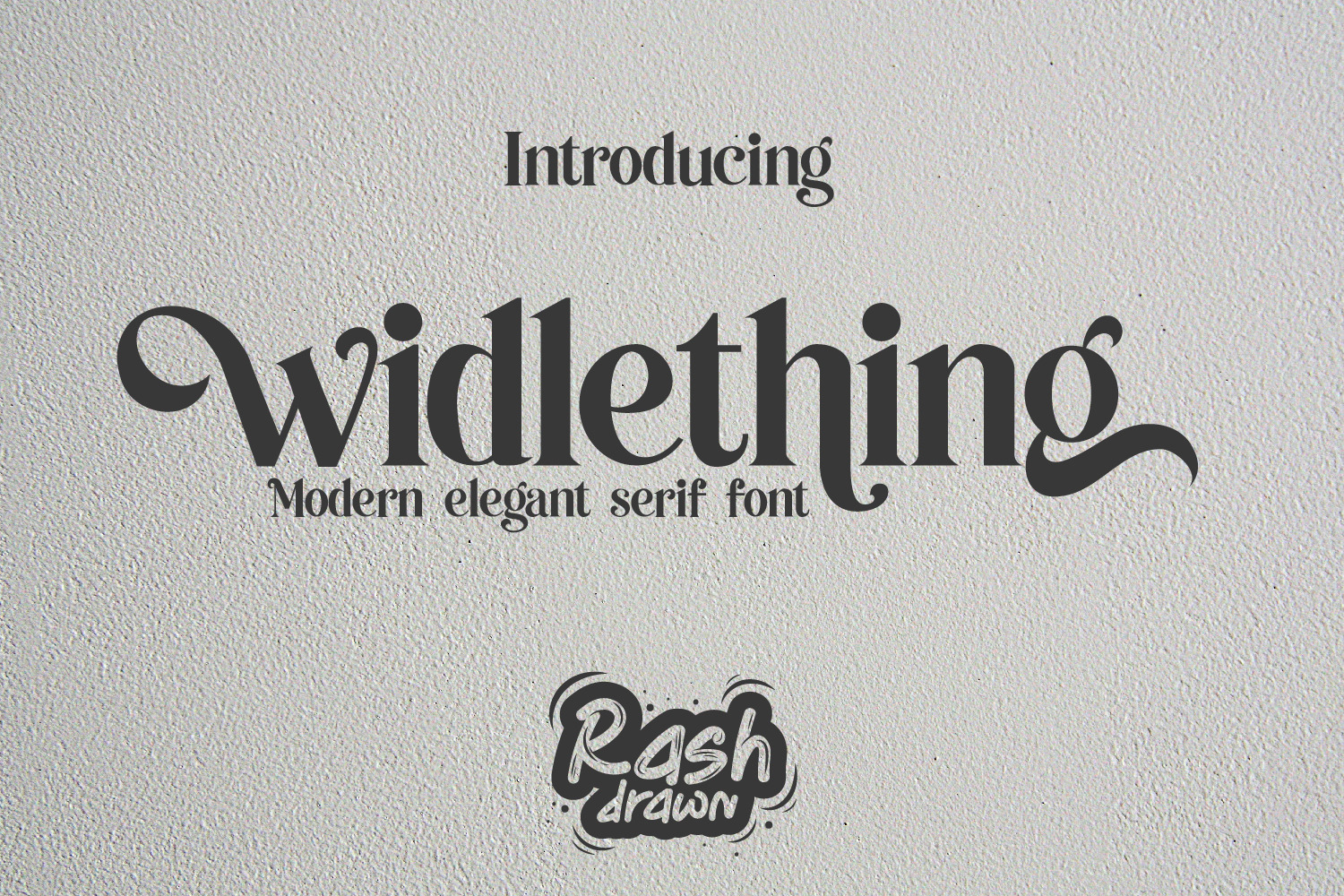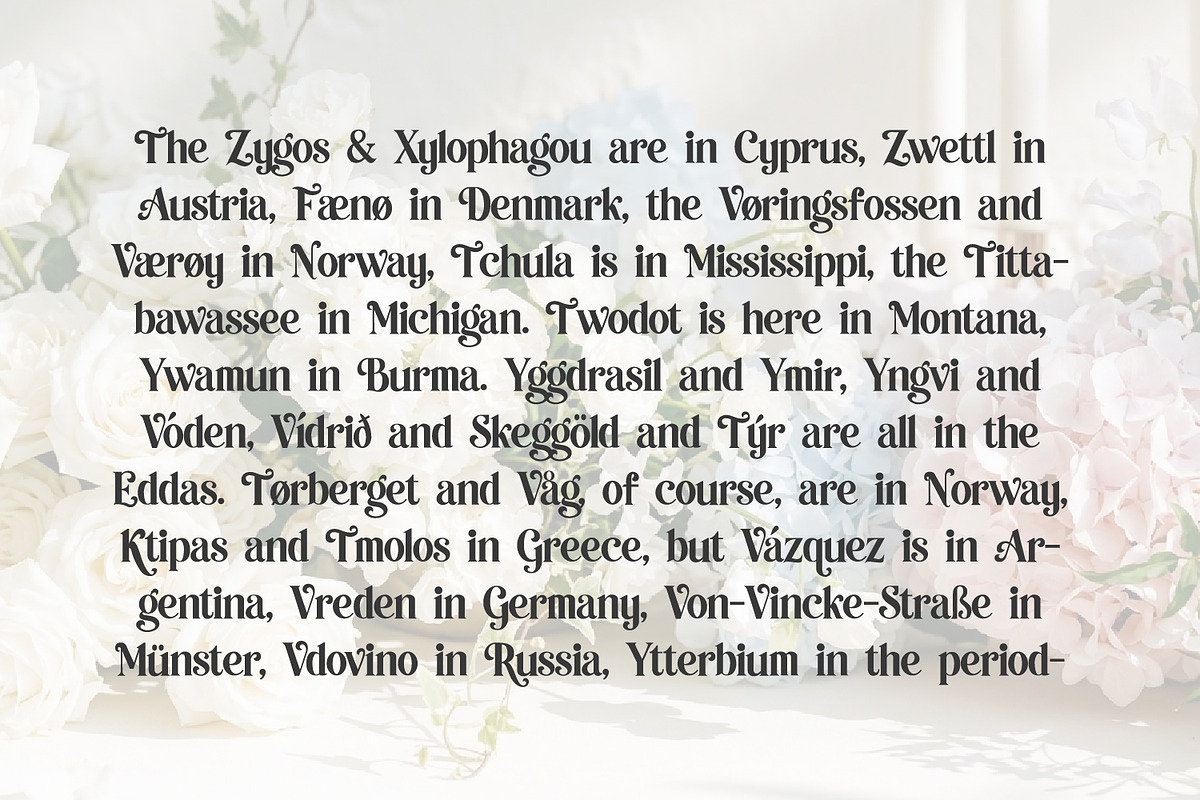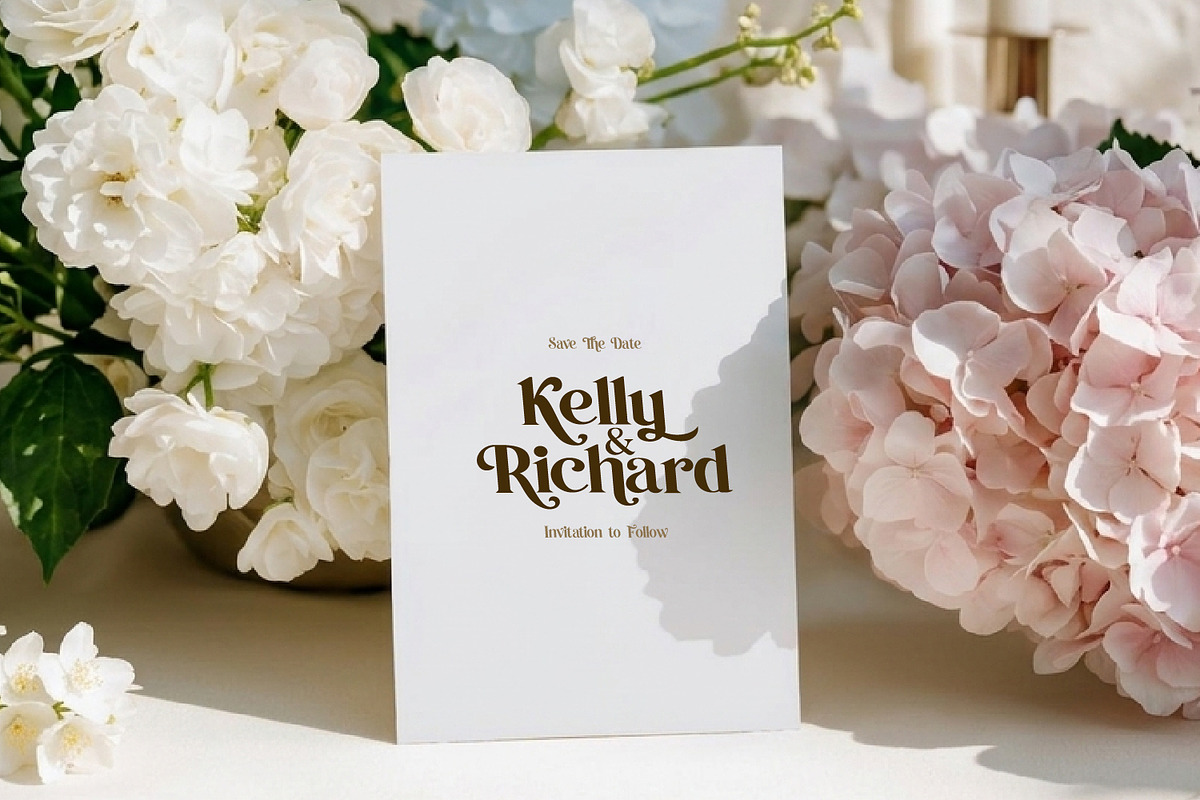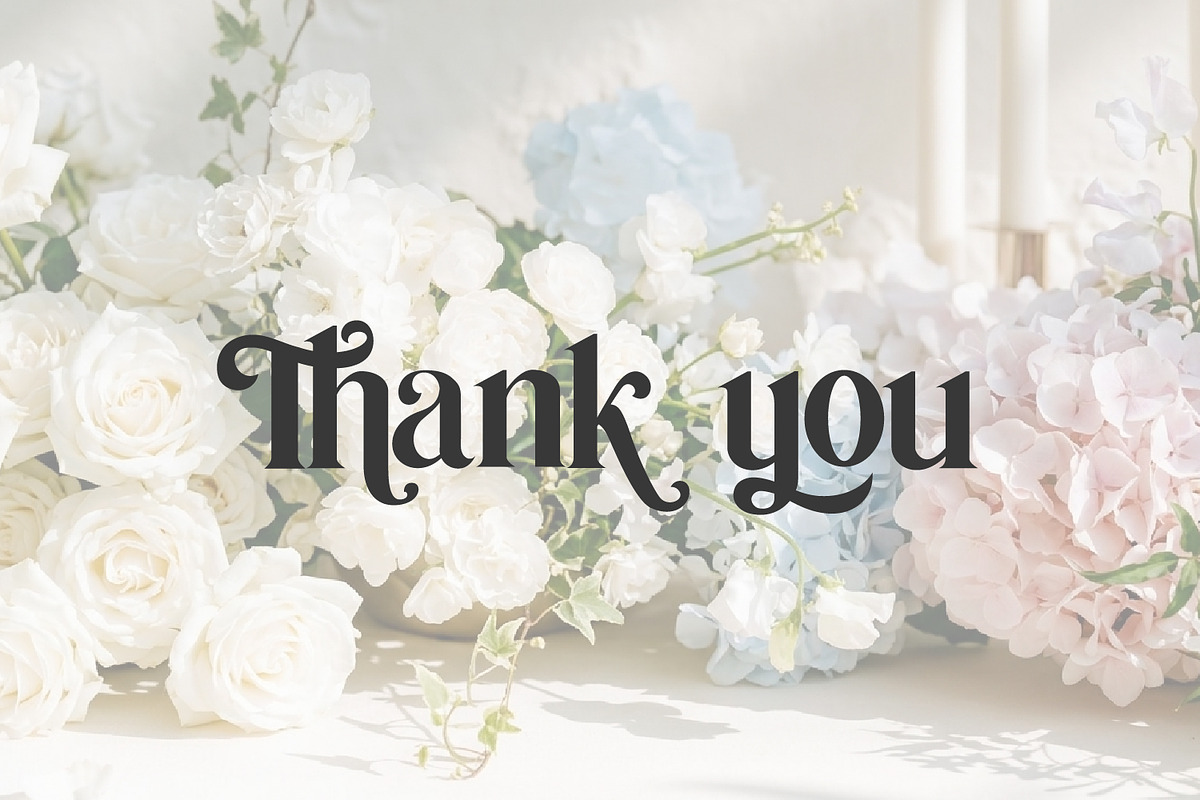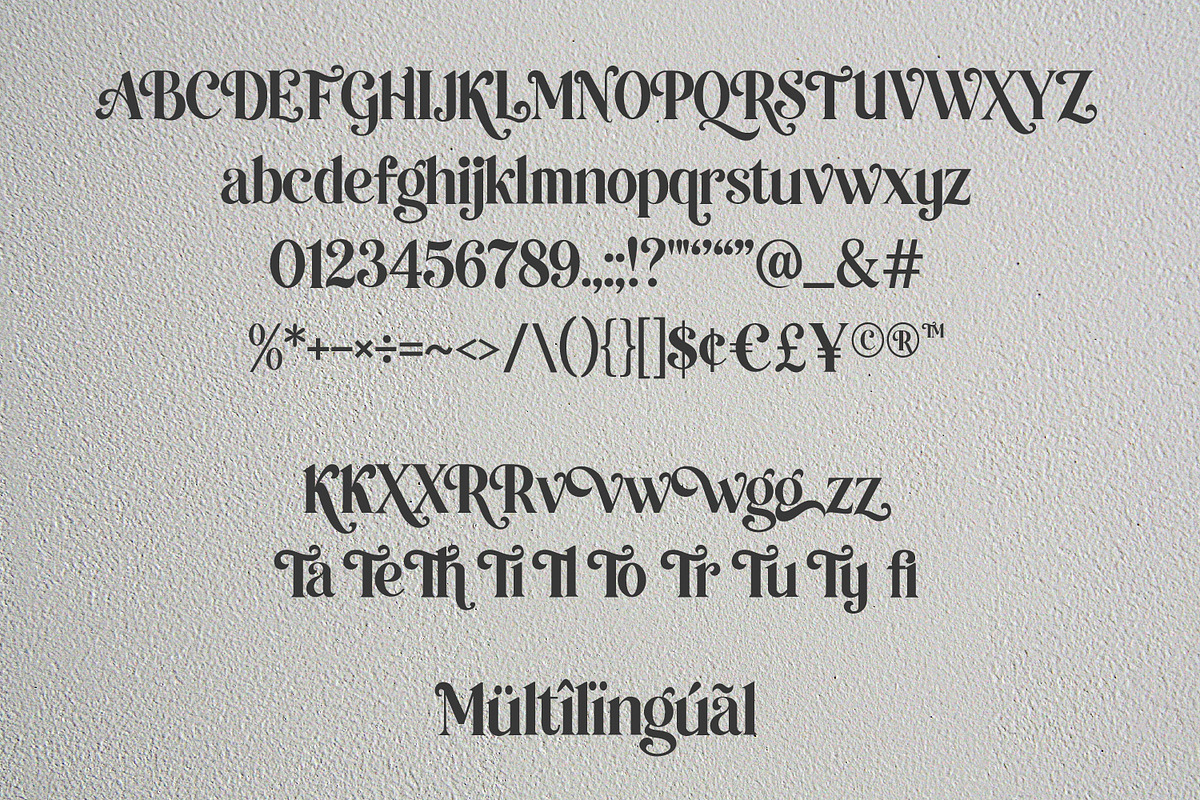
Widlething - modern serif font
Introduce a touch of sophisticated luxury and artisanal precision to your designs with Widlething. This font is a beautiful blend of a powerful, bold serif structure and dynamic, elegant swashes. Every character was meticulously hand-crafted with sharp detail, reflecting a high level of craftsmanship and exclusivity for all your high-end creative projects.
Widlething is perfect for design applications that require a strong visual presence combined with graceful aesthetics. It is ideal for high-fashion branding, premium logos, elegant stationery, wedding invitations, luxury packaging, and sophisticated editorial layouts. The unique characters for 'W' and 'V' give this font an instantly recognizable visual identity.
Manual Vector Precision
A Balance of Bold & Graceful
Full Character Set: Includes Uppercase, Lowercase, Numbers, and a full range of Punctuation.
Multilingual Support: Ready to be used for global design projects.
Alternates & Ligatures: Providing flexibility for unique and customized typographic compositions.
Take your design standards to the next level with Widlething. Created for designers seeking a font with a powerful personality and timeless style.